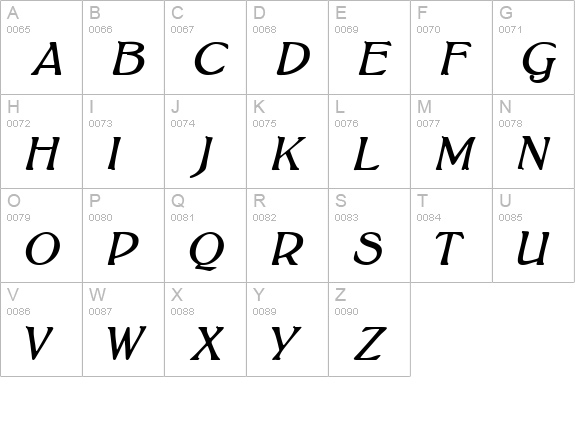
BoltonItalic is a stylish and versatile font that exudes elegance and sophistication. With its slanted design and graceful curves, this font is perfect for adding a touch of class to any project. The italicized letterforms of BoltonItalic convey a sense of fluidity and movement, making it ideal for conveying a sense of energy and dynamism. One of the best things about BoltonItalic is that it is completely free to download. You can easily access this beautiful font at FontsMarket.com, where you can enhance your design projects without any cost. Whether you're working on a website, a poster, a logo, or any other creative endeavor, BoltonItalic is sure to make a stunning impression. Download this exquisite font today and elevate your designs to a whole new level of sophistication.